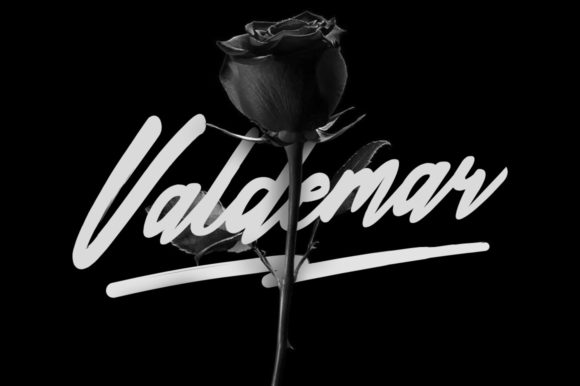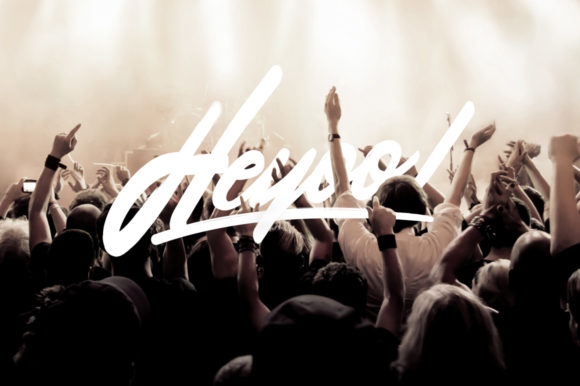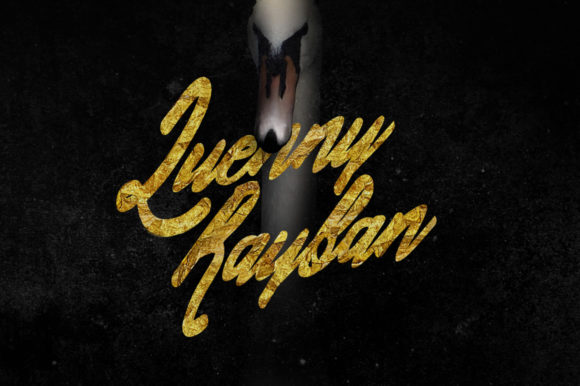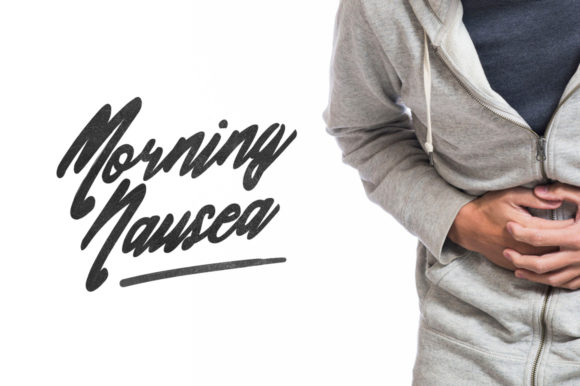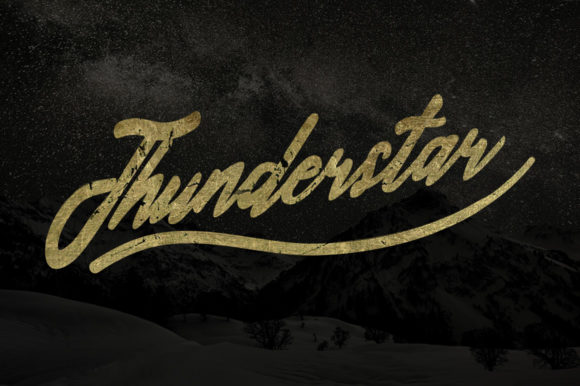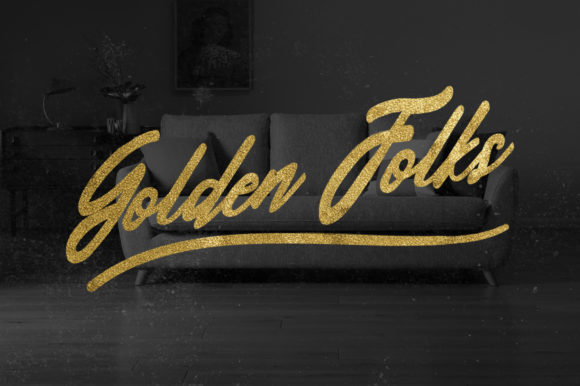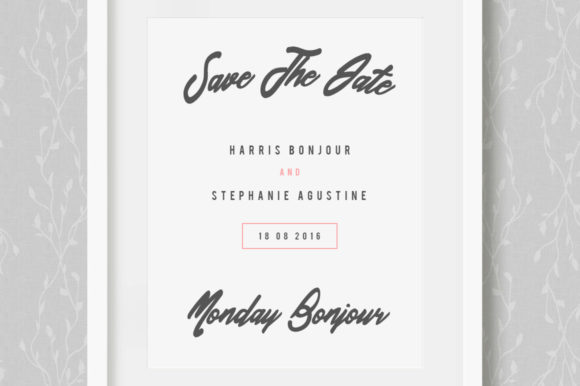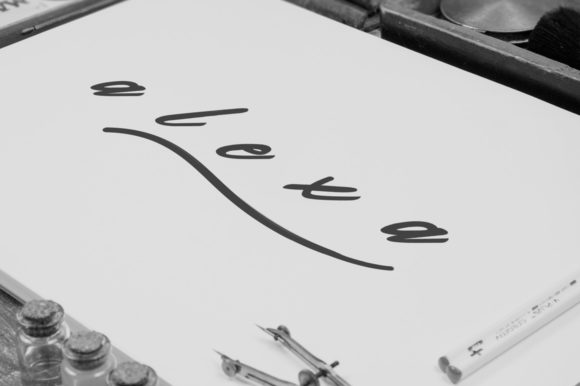
HomeScript FontsValdemar Font Script Fonts Valdemar Font FacebookXPinterestWhatsApp Valdemar Font Poster 2 Valdemar Font Poster 3 Valdemar Font Poster 4 Valdemar Font Poster 5 Valdemar Font Poster 6 Valdemar Font Poster 7 Valdemar Font Poster 8 About Valdemar Font Valdemar is a bold and charming script font with a modern feel. Get inspired by its unique vibe! DOWNLOAD ON CREATIVE FABRICAThis font is sold and delivered by Creative Fabrica. Font Canyon may earn a commission if you buy through this link. People also explored Monthly Statement JNL Font Tamara Font Jasmine Font Trillian Font Scriptissimo Forte Semilya Fontera Font Moyra Lorraine Proxena Satodar Font Spring Doodles Font 429 0 TagsValdemar Font Previous articleFranklin Family FontNext articleWosser Font LEAVE A REPLY Cancel reply Comment: Please enter your comment! Name:* Please enter your name here Email:* You have entered an incorrect email address! Please enter your email address here Website: Save my name, email, and website in this browser for the next time I comment. Personal Use Free Messages Personal Use Free Read more about this font Rumaniaya Personal Use Free Read more about this font Clumed Personal Use Free Read more about this font Fontmageddon Personal Use Free Read more about this font BLOG Free vs Paid Fonts: Why Investing in Premium Fonts Is Worth It Free vs Paid Fonts: Why Premium Fonts Are Worth It in 2025 The debate of free vs paid fonts continues in the design world. While... Top 10 Handwritten Fonts That Elevate Your Designs 5 Fonts That Will Dominate Design Trends in 2026 Free Fonts Risk: Why Free Fonts Can Be Dangerous for Designers